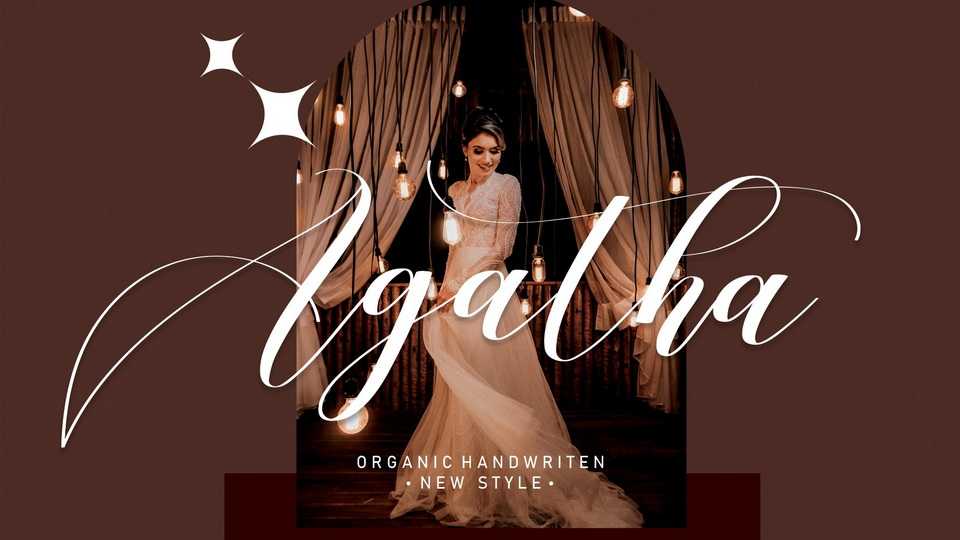
Agatha Script Font › Fontesk – Download Grátis
Download Agatha font, a sophisticated handwritten typeface that is great for delivering any message with confidence, authenticity and charm.